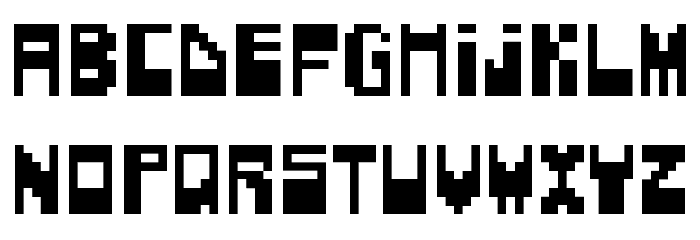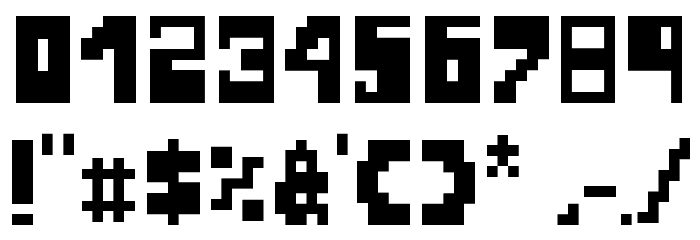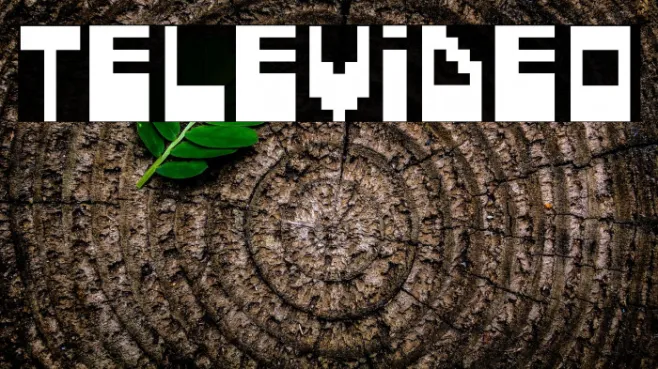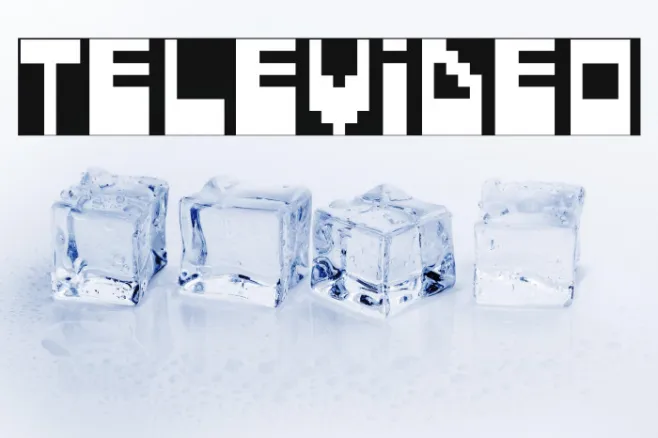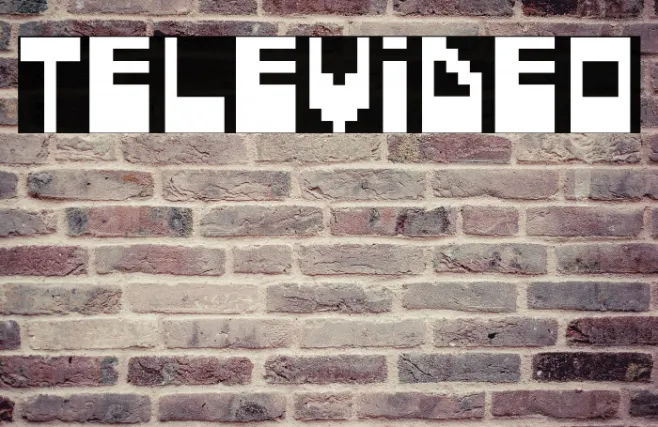
Televideo Font
This font features a bold, pixelated style reminiscent of early computer and video game graphics. Each character is constructed with a blocky, geometric design, giving it a distinctly retro and digital appearance. The uniformity in stroke width across all characters contributes to a cohesive and structured look. The uppercase and lowercase letters maintain a consistent height, enhancing readability and creating a compact visual impact. Numbers and special characters follow the same pixelated theme, ensuring a harmonious overall design. This font's nostalgic aesthetic makes it ideal for projects that aim to evoke a sense of vintage technology or classic gaming.
- Proposed Projects: Ideal for retro-themed video games, tech-related branding, digital art projects, and nostalgic marketing materials.
- Overall Style: Vintage